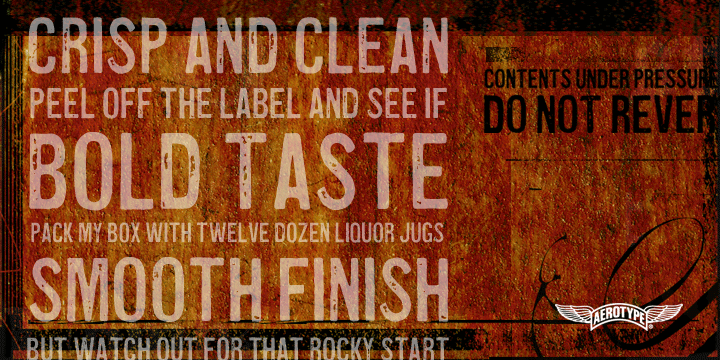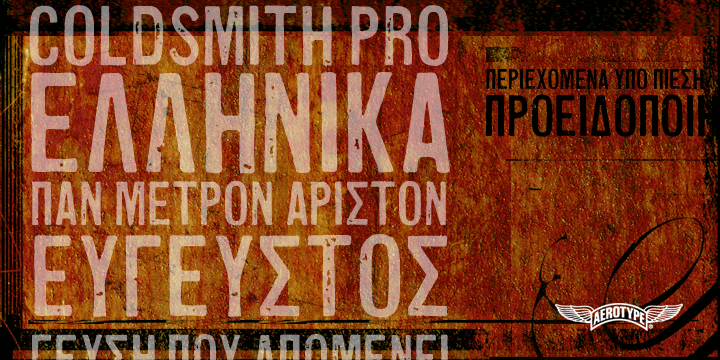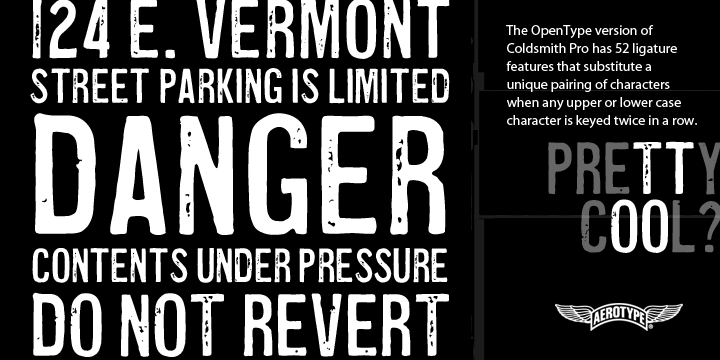
COLDSMITH PRO
Coldsmith Pro is a grunge and display sans font published by Aerotype .
The OpenType version of Coldsmith Pro has 52 ligature features that automatically substitute a unique pair of distressed characters when any upper or lower case letter is keyed twice in a row, as well as support for Eastern European Latin, Baltic, Greek and Turkish.
Styles Display Sans, Grunge